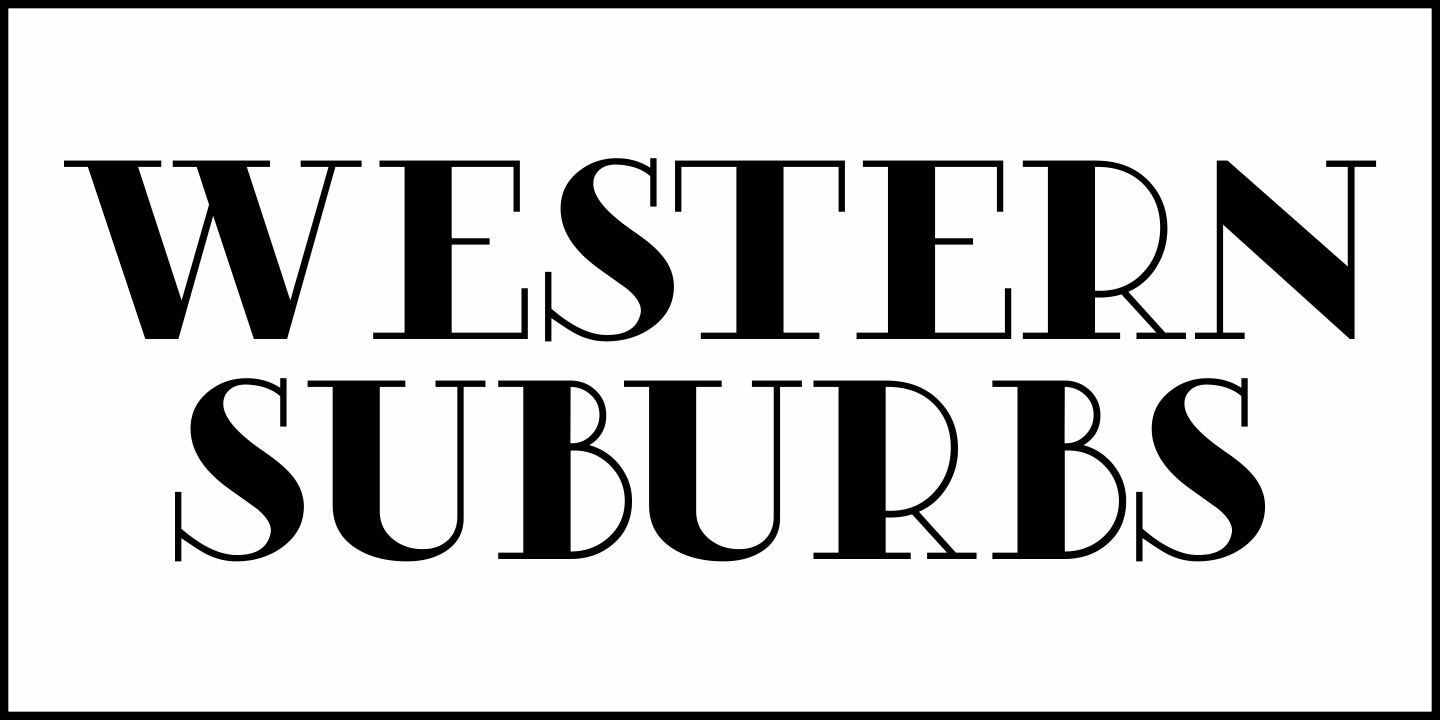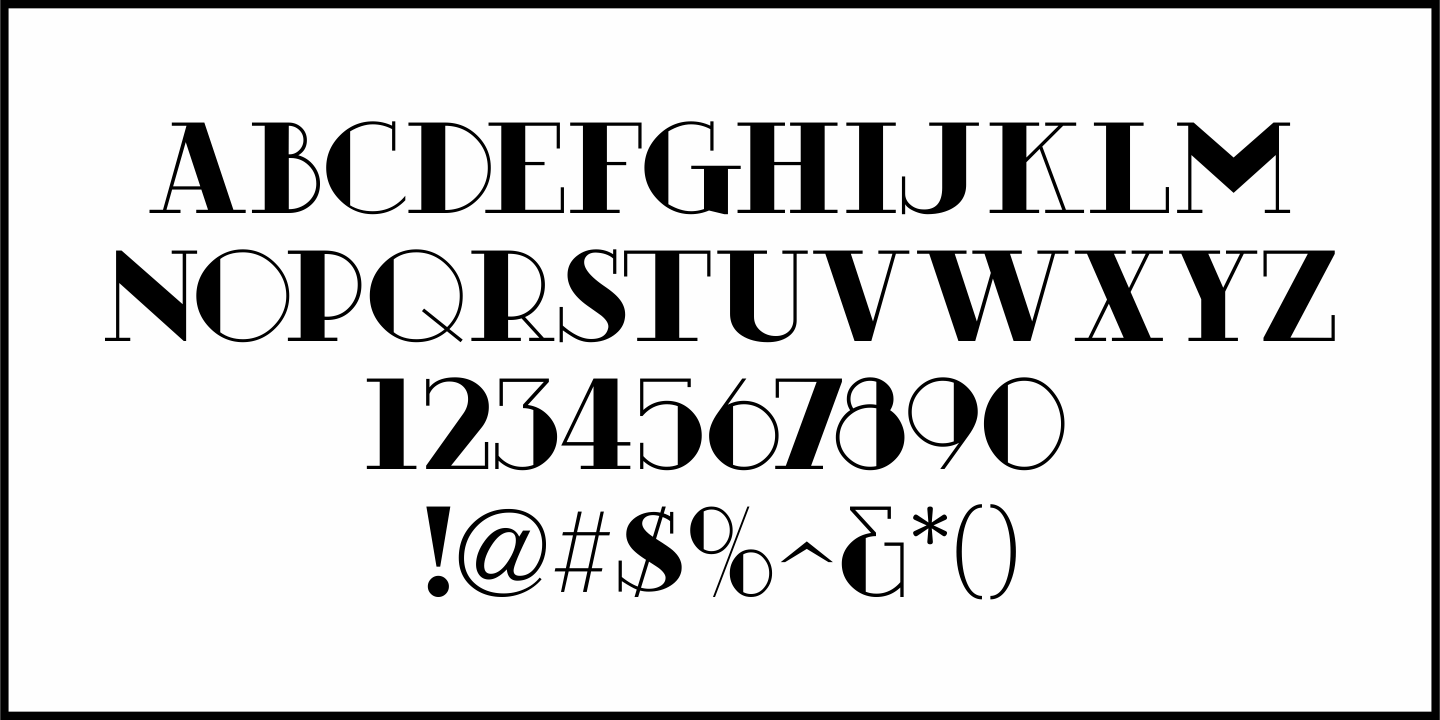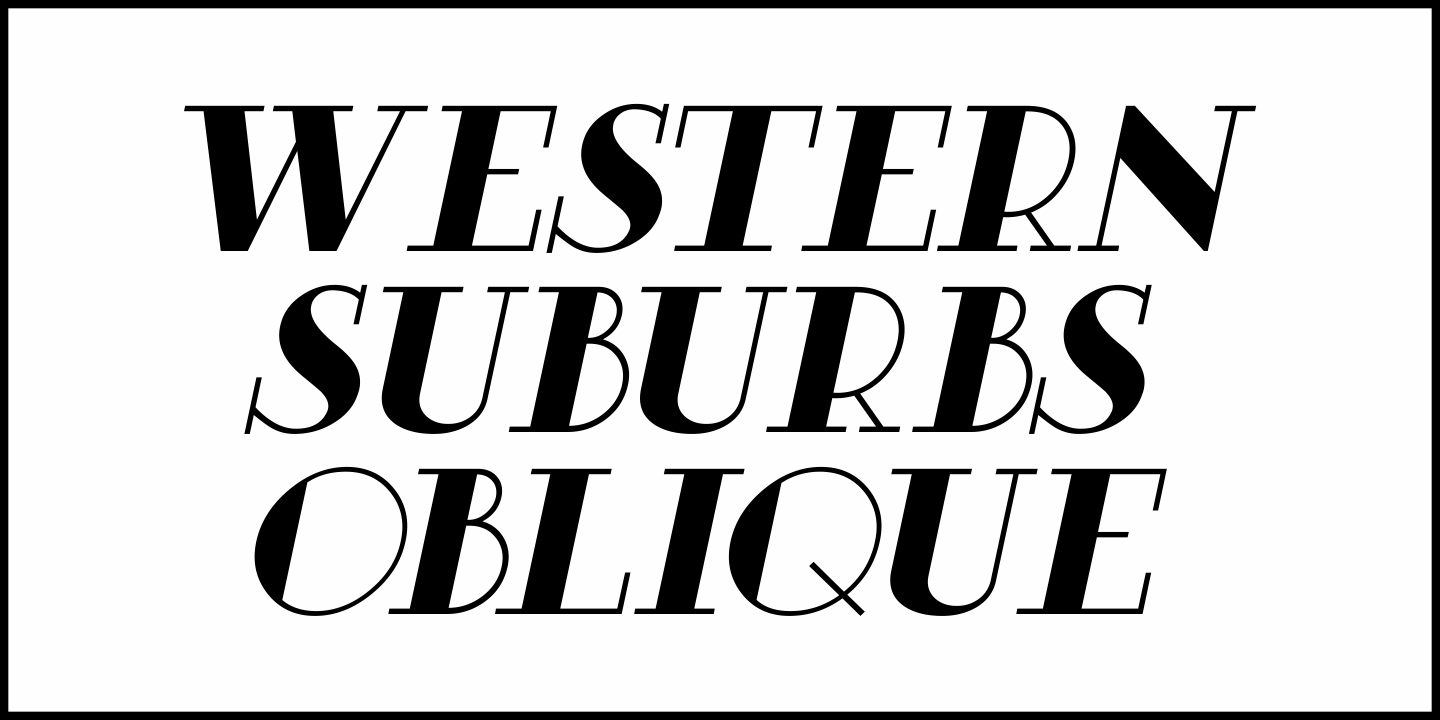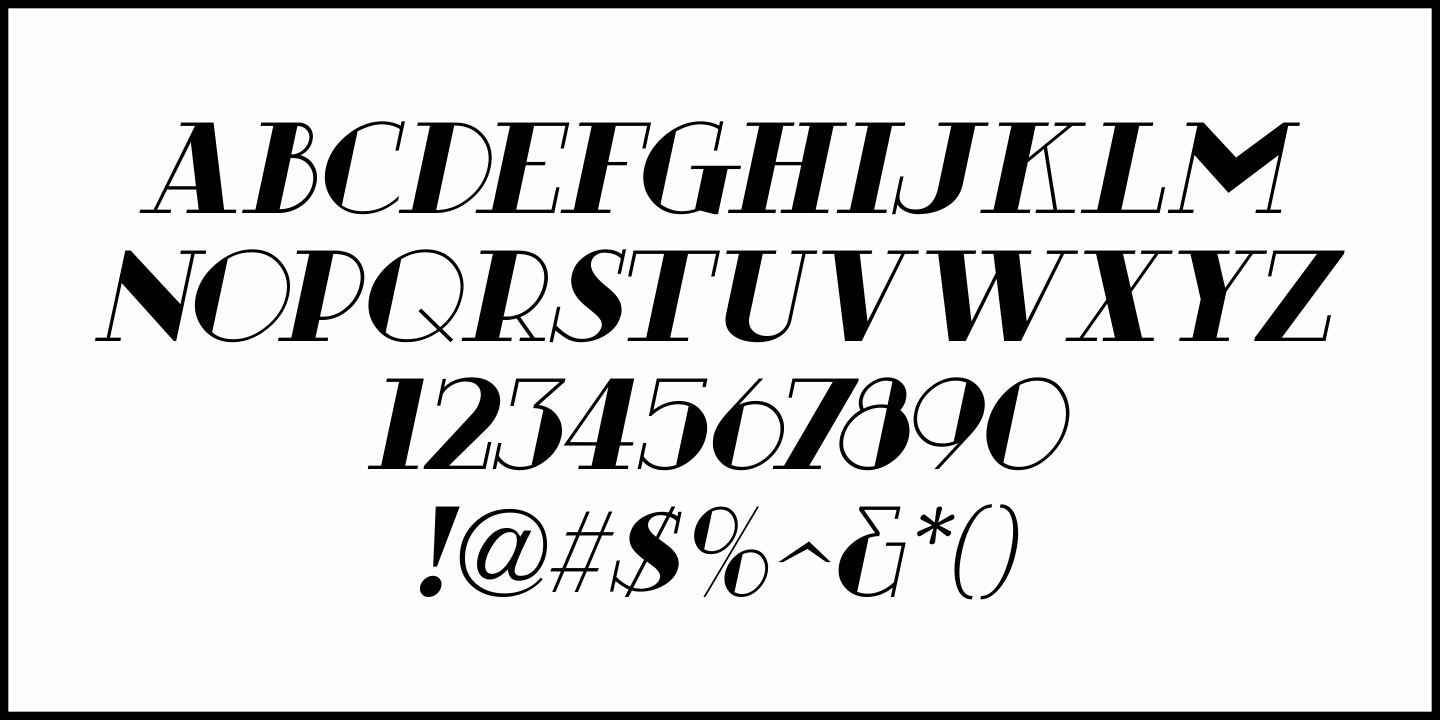
Western Suburbs
The cover of a 1932 edition of “Sunset magazine” (a publication for homeowners living in the west and southwest area of the United States) featured a lovely Art Deco serif alphabet that is now available as Western Suburbs JNL in both regular and oblique versions.